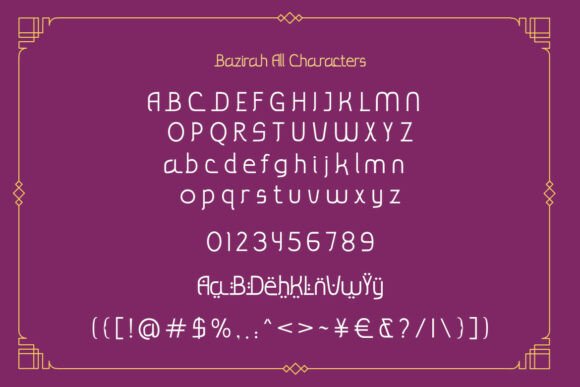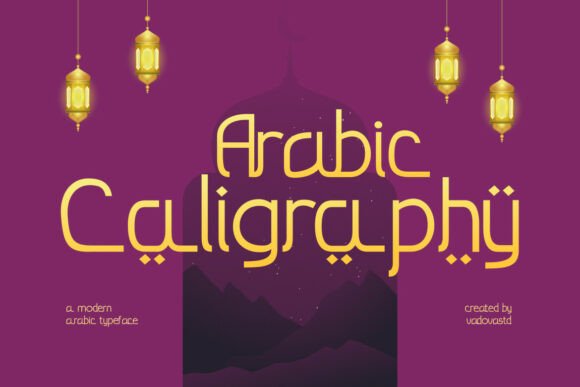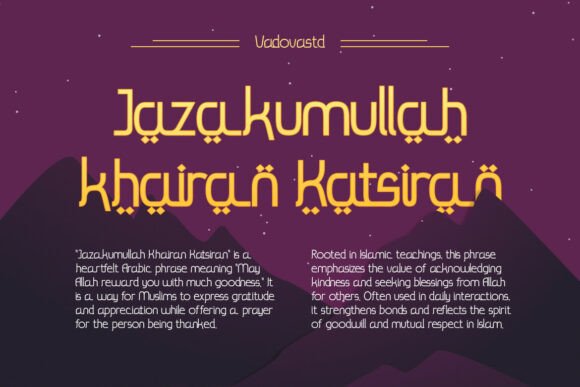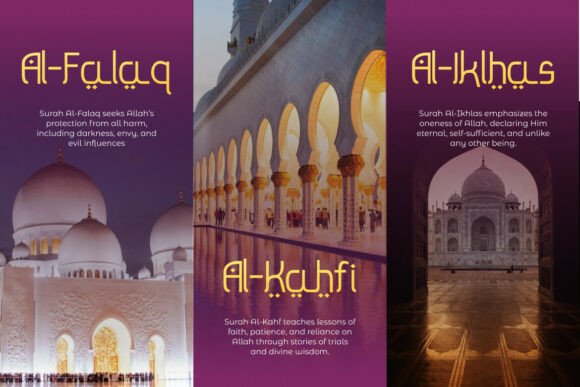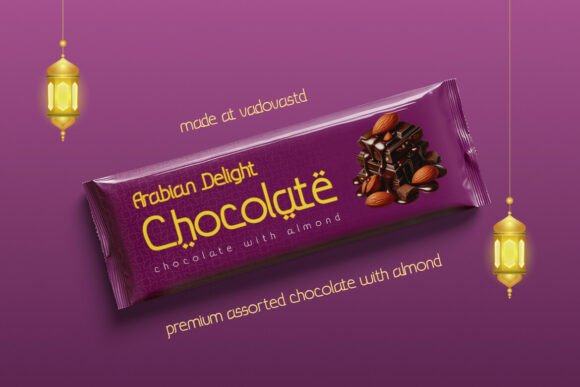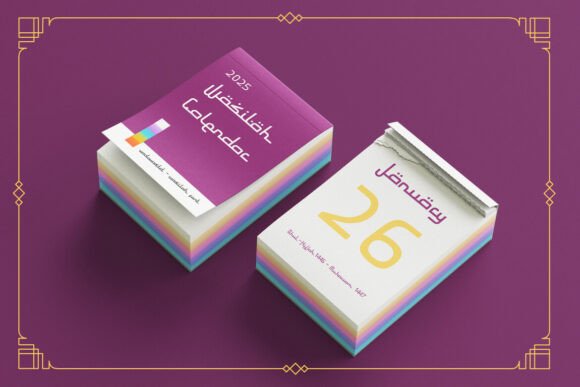
Introducing Bazirah Font: The Epitome of Modern Arabic Elegance
In the realm of typography, few fonts manage to encapsulate the essence of cultural heritage while exuding modern sophistication. Bazirah Font, a modern display typeface, achieves this delicate balance by infusing the charm and rhythm of Arabic calligraphy into a contemporary design. This elegant font is not just a typographical innovation; it’s a bridge between tradition and modernity, making it an indispensable tool for designers and crafters aiming to add a touch of Middle Eastern aesthetics to their projects.
The Essence of Bazirah: A Blend of Tradition and Modernity
Bazirah Font is meticulously crafted to radiate sophistication and cultural depth, capturing the quintessence of Middle Eastern aesthetics in a form that is both contemporary and timeless. It strikes a perfect balance between ornamental elegance and geometric precision, making it an ideal choice for projects that demand a high level of sophistication and cultural relevance.
Versatility at Its Best: Diverse Applications of Bazirah
One of the standout features of Bazirah Font is its versatility. Its unique blend of traditional Arabic calligraphy and modern design elements makes it suitable for a wide array of applications. Here are some of the areas where Bazirah truly shines:
- Ramadan Campaigns and Eid Promotions: Add a touch of cultural sensitivity and elegance to your festive communications.
- Religious Branding: Convey respect and authenticity in your branding for religious institutions and events.
- Boutique Packaging: Elevate your luxury goods with a distinctive and sophisticated packaging design.
- Logo Design: Create memorable and impactful logos that reflect a blend of tradition and modernity.
- Magazine Titles and Social Media Posts: Stand out in the digital and print media landscape with eye-catching titles and posts.
- Event Posters and Mosque Signage: Communicate effectively and elegantly with posters and signage that carry a sense of cultural gravitas.
- Luxury Product Packaging, Textile Branding, and Perfume Packaging: Infuse your luxury products with a sense of opulence and refinement.
- Religious Book Covers and Stationery Branding: Add a layer of respect and elegance to your publications and stationery.
- Restaurant Menus and Ethnic Fashion Lookbooks: Transport your audience to a world of elegance and cultural richness through your menus and lookbooks.
- Artisanal Food Labels and Cultural Branding: Enhance your artisanal food products and cultural initiatives with labels and branding that tell a story.
- Gallery Promotions: Showcase art and culture with promotions that embody sophistication and aesthetic appeal.
Crafting Timeless Luxury with Modern Usability
Bazirah Font is not just about aesthetics; it’s also designed with usability in mind. Its clear geometric structure ensures legibility, making it suitable for both digital and print media. Designers and crafters can easily integrate Bazirah into their projects, knowing that it will convey their message with elegance and clarity.
Conclusion: Elevate Your Designs with Bazirah
In conclusion, Bazirah Font is a remarkable addition to the world of typography, offering a unique blend of Arabic calligraphic charm and modern design sensibilities. Whether you’re a designer looking to add cultural depth to your projects or a crafter aiming to infuse your work with elegance and sophistication, Bazirah is the perfect choice. Its versatility, combined with its aesthetic appeal and usability, makes it an invaluable tool for a wide range of applications. Embrace the beauty and elegance of Bazirah Font in your next project and witness how it transforms your designs into timeless pieces of art.